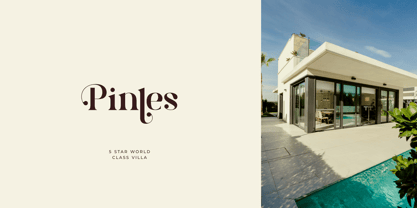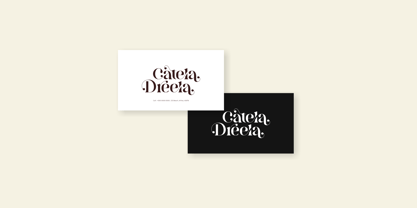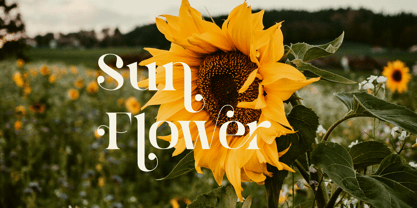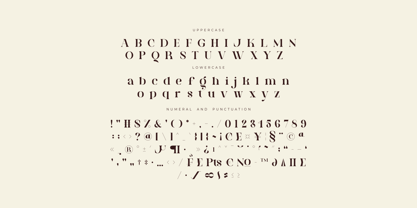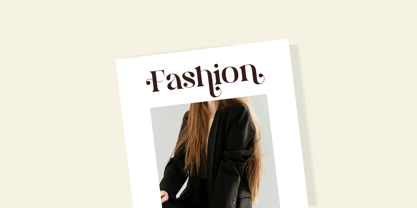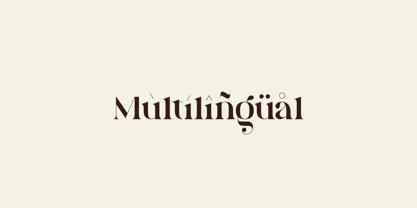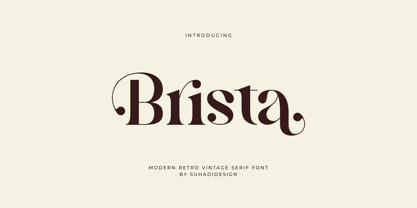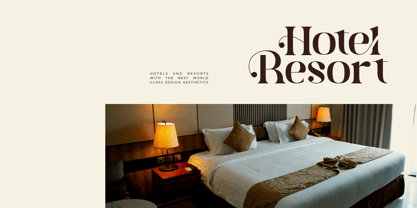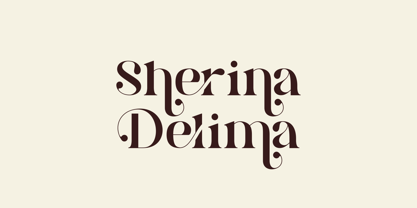
Brista
par suhadidesign
La famille de polices Brista a été conçue par ahmad suhadi et publiée par suhadidesign. Brista contient 1 styles.
Brista - Elegant Serif Font Hello, ladies and gentlemen! The latest stylish modern font has arrived, a font much sought after by both women and men. This is the Brista font. Brista is a classy and contemporary serif font. With its elegant design and stylish ligatures, this font has become a favorite in the market. We have kept this font looking elegant, classy, ​​and stylish. Brista is the perfect choice for brands, cosmetics, boutiques, beauty, magazines, designs, books, publications, branding, brand names, business cards, social media, classy designs, newspapers, branding, beauty, and other projects. Brista is here to elevate the quality of your designs. Stay tuned for the latest information on font creation :) Features: • Capital Letters • Lowercase Letters • Alternate • Ligatures • Swash • Multilingual Support • Numbers • Punctuation Thank you